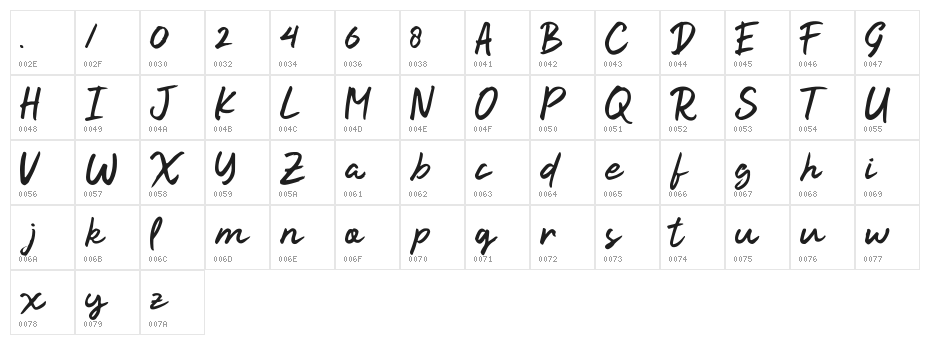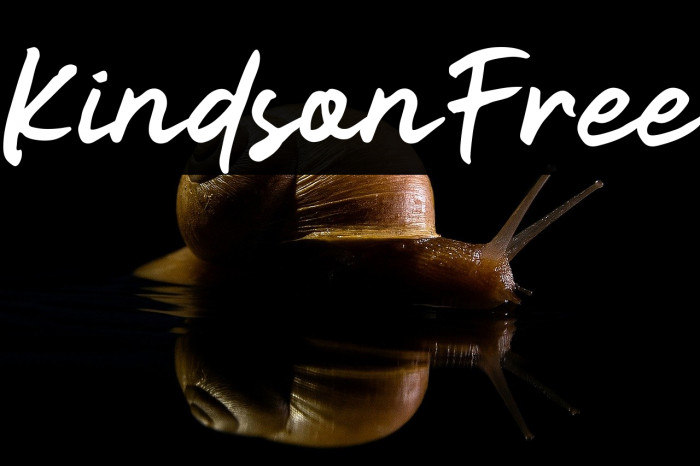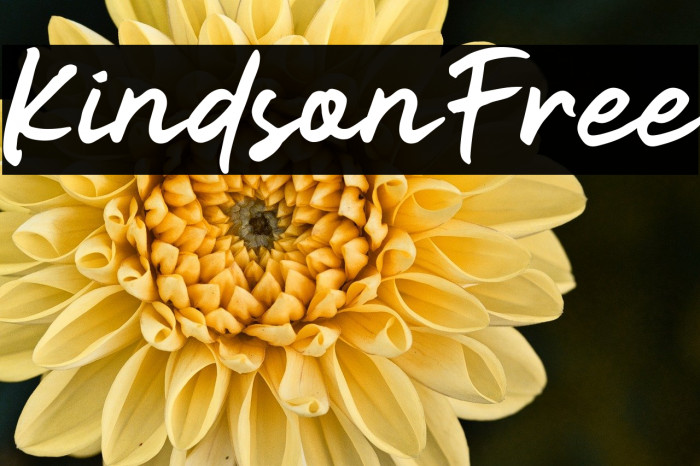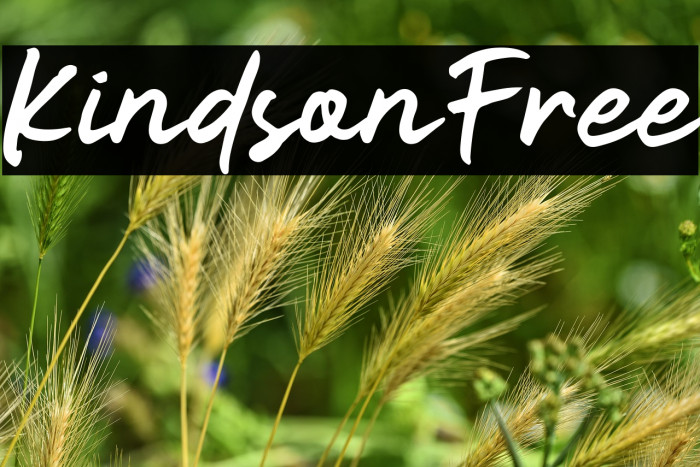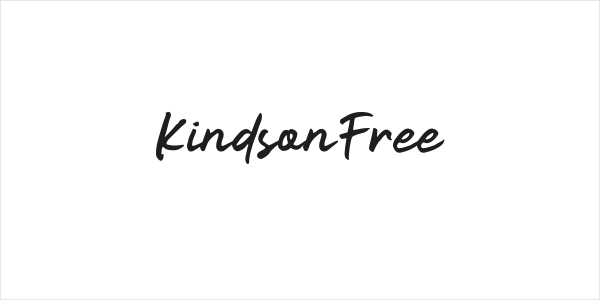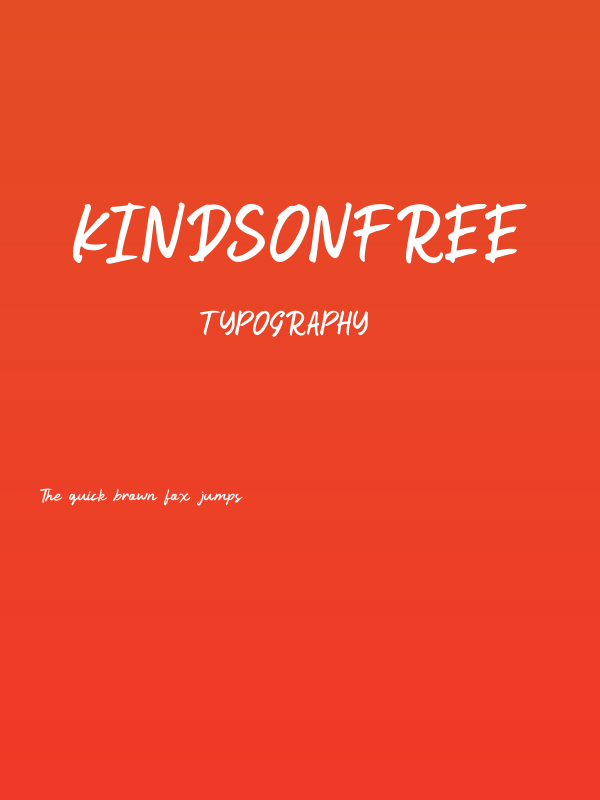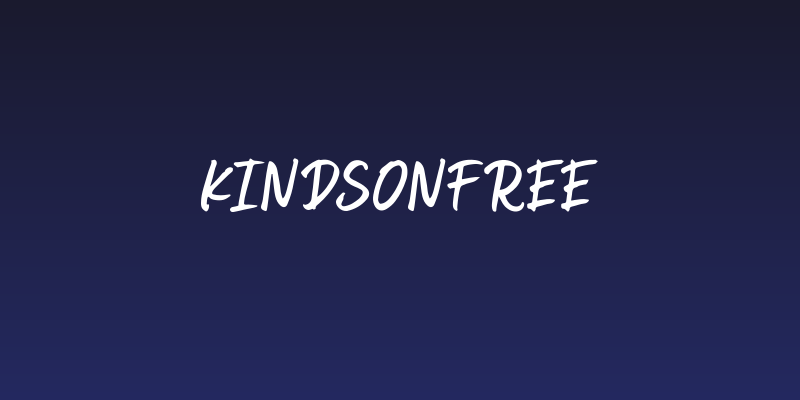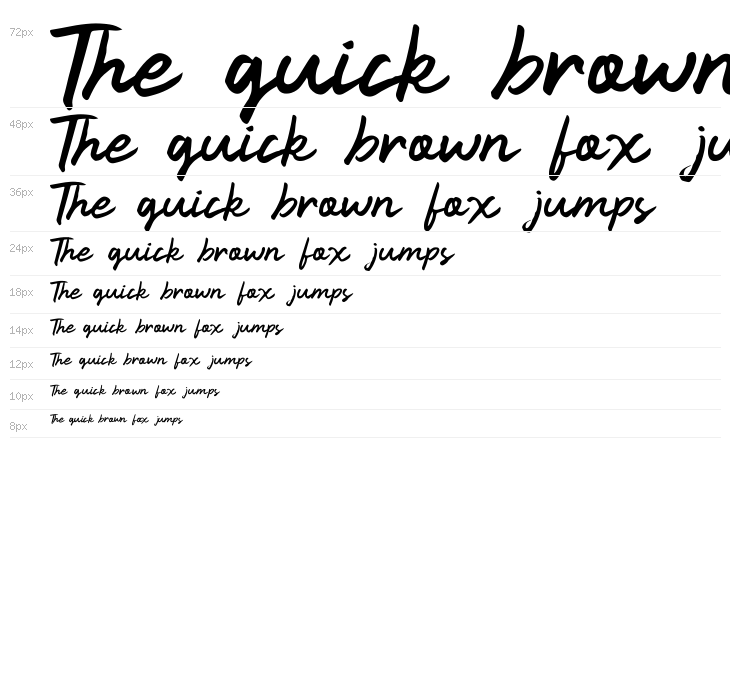
KindsonFree Font
KindsonFree Description
This font features a dynamic and expressive handwritten style, characterized by its fluid strokes and natural flow. The uppercase letters are bold and slightly slanted, giving a sense of movement and energy. The lowercase letters maintain a consistent style, with some characters like 'g' and 'j' having distinctive loops that add to the font's charm. The numerals are bold and clear, ensuring readability. Special characters are integrated seamlessly, maintaining the overall aesthetic. This font is perfect for projects that require a personal touch, such as invitations, greeting cards, and creative branding.
| Proposed Projects | Ideal for invitations, greeting cards, creative branding, and personal projects. |